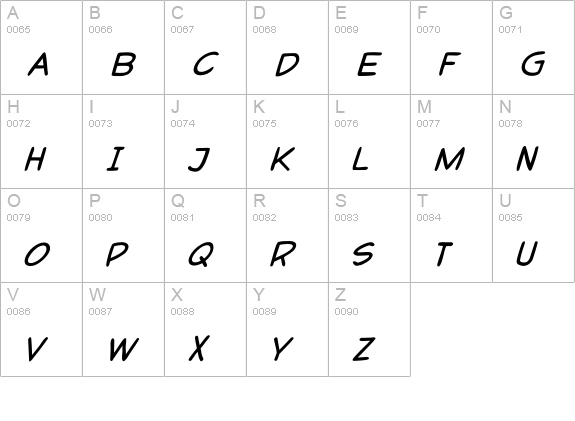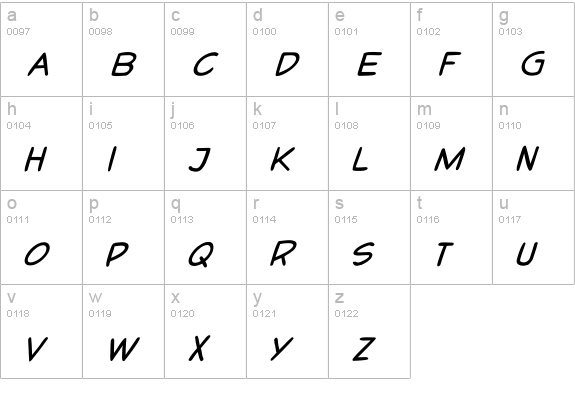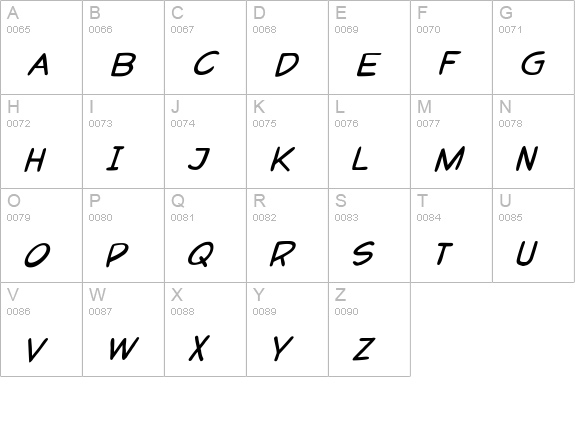
P22PopArt-ComicBoldItalic Font Details
P22PopArt-ComicBoldItalic font is a vibrant and expressive typeface that combines the boldness of comic book lettering with the quirky style of Pop Art. Its playful and dynamic design captures the essence of the 1960s Pop Art movement, making it the perfect choice for projects that require a bold and attention-grabbing aesthetic. This font features bold and italicized letterforms that add an extra flair to your designs. The thick strokes and exaggerated curves create a sense of movement and energy, making each character appear as if it's jumping off the page. The combination of boldness and italics gives your text a unique and eye-catching look that is sure to make a statement. P22PopArt-ComicBoldItalic font is versatile and can be used across various projects, including posters, advertisements, comic books, and more. Its bold and playful nature makes it ideal for conveying a sense of fun and excitement, while its italicized style adds a touch of elegance and sophistication. The best part? P22PopArt-ComicBoldItalic font is free! You can freely download this font at FontsMarket.com, a trusted online resource for high-quality fonts. By offering this font for free, the creators of P22PopArt-ComicBoldItalic font ensure that everyone can access and enjoy its unique style and versatility. So, whether you're a designer looking to add a touch of Pop Art flair to your creations or simply someone who appreciates bold and expressive typography, P22PopArt-ComicBoldItalic font is the perfect choice. Download it for free at FontsMarket.com and let your creativity shine with this vibrant and captivating typeface.